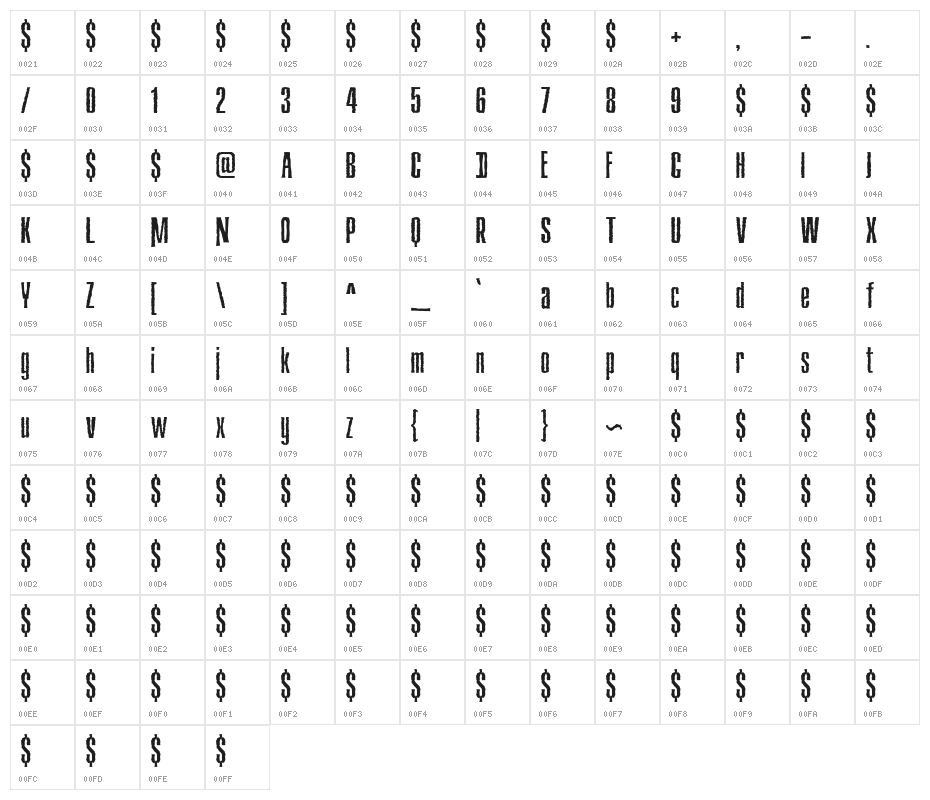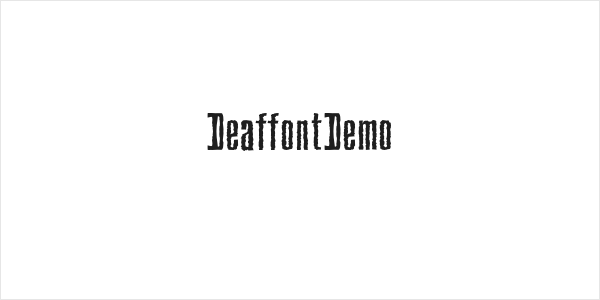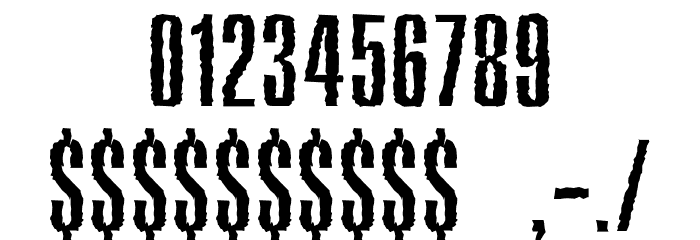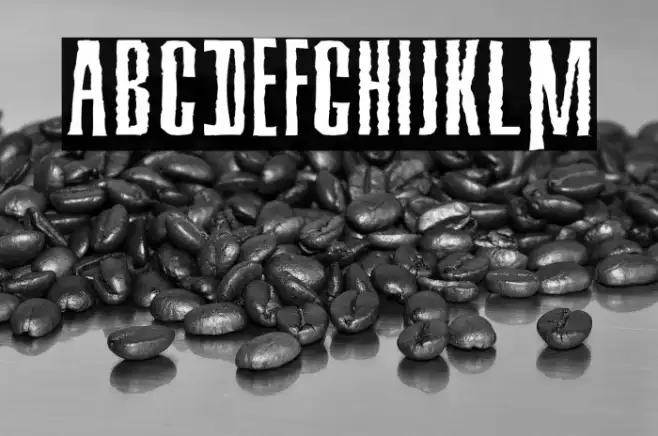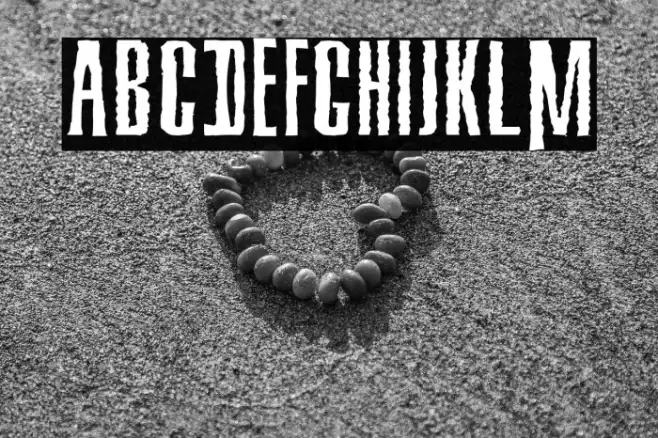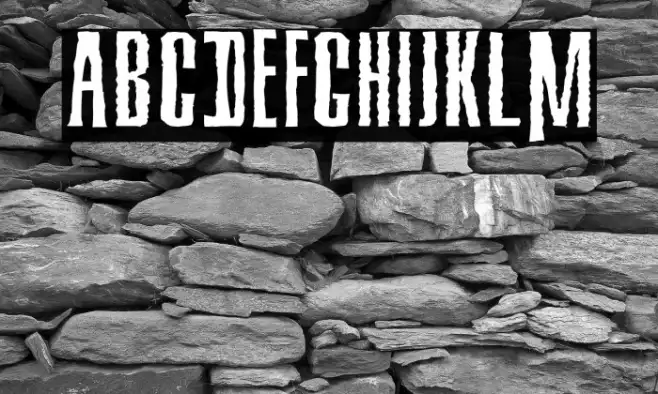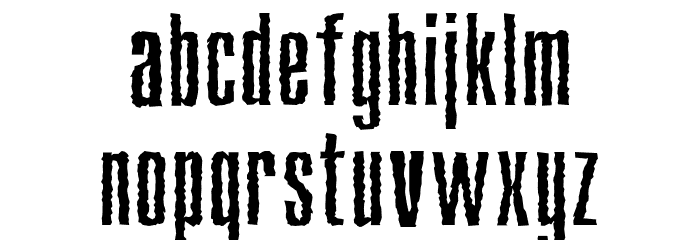
DeaffontDemo Font
DeaffontDemo Description
This font features a bold and rugged design with a distressed texture that gives it a unique, weathered appearance. The uppercase and lowercase letters maintain a consistent height, contributing to a uniform look. The characters have a slightly condensed width, enhancing the boldness of the design. The numbers and special characters follow the same stylistic approach, ensuring cohesion across all elements. The font's rough edges and irregular strokes add a sense of movement and energy, making it stand out in any design context.